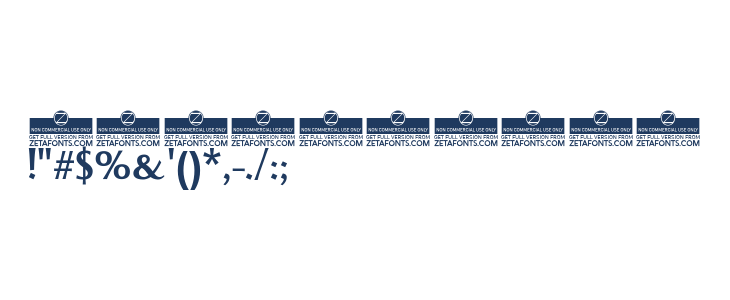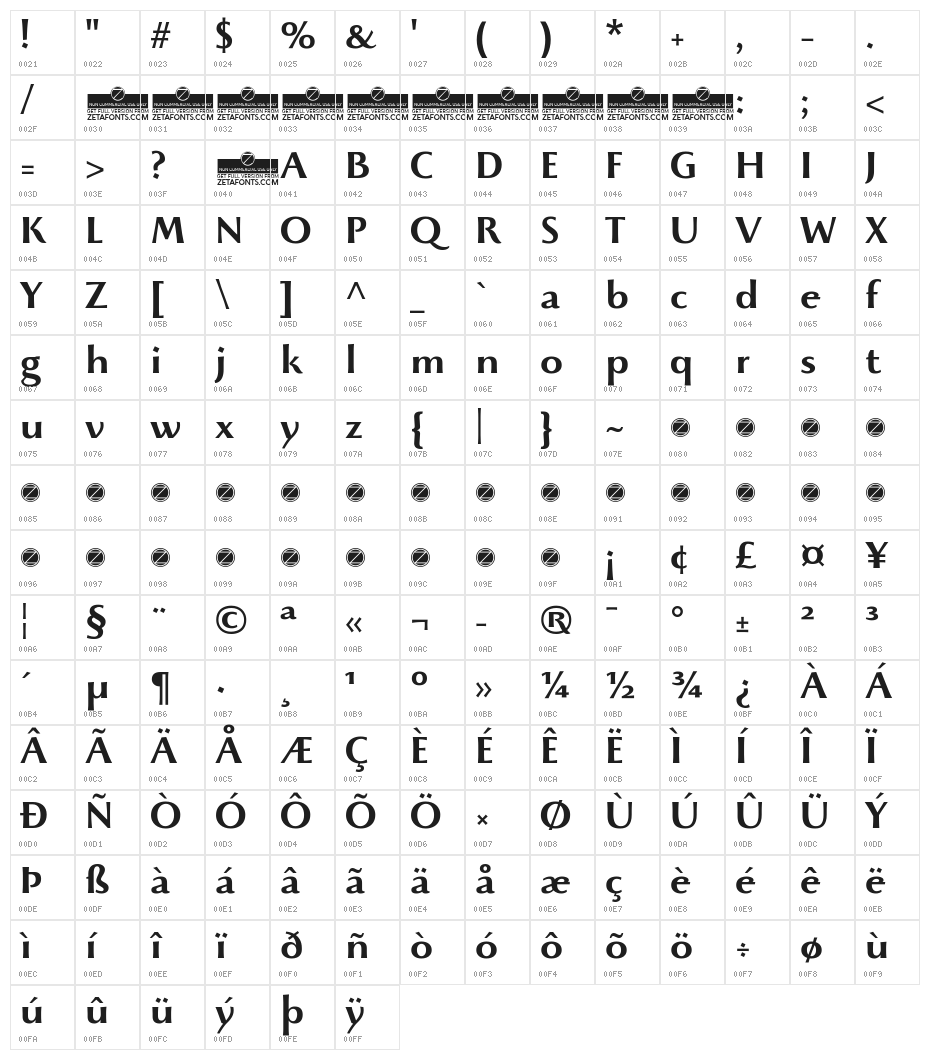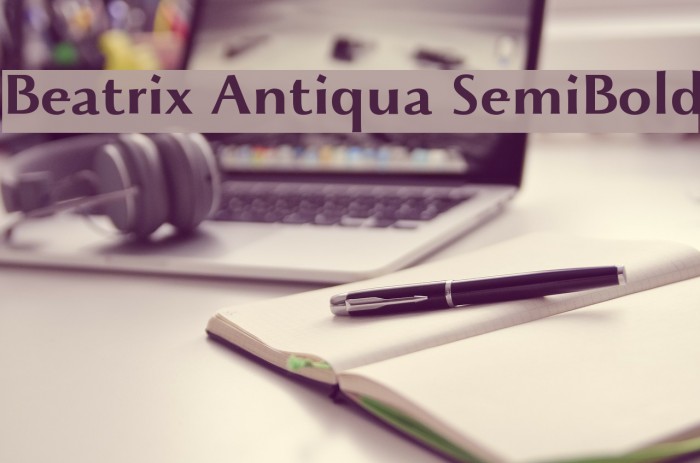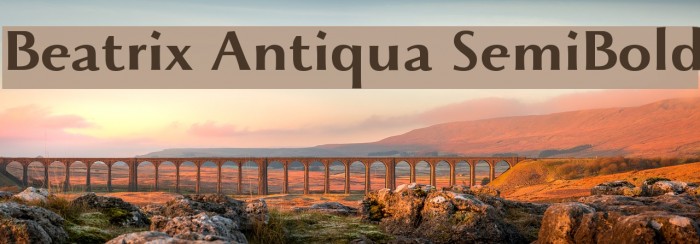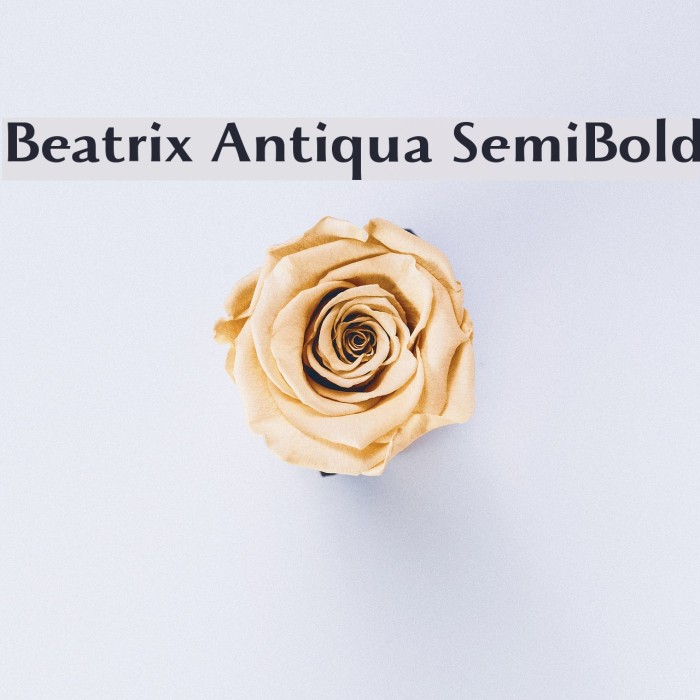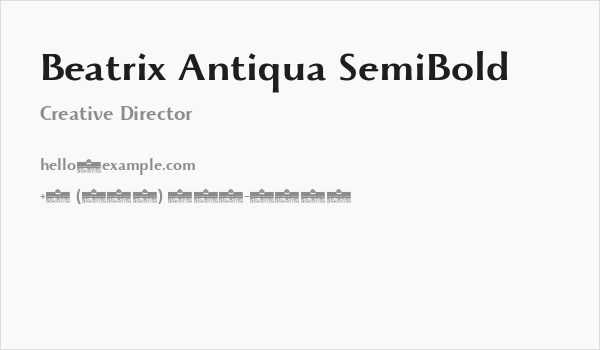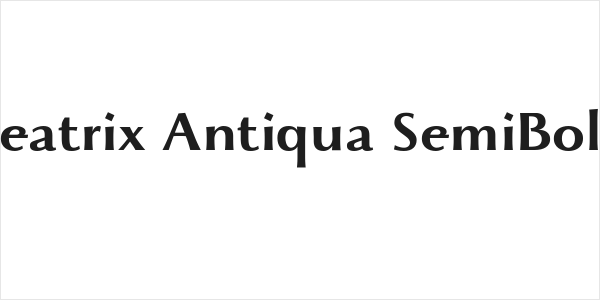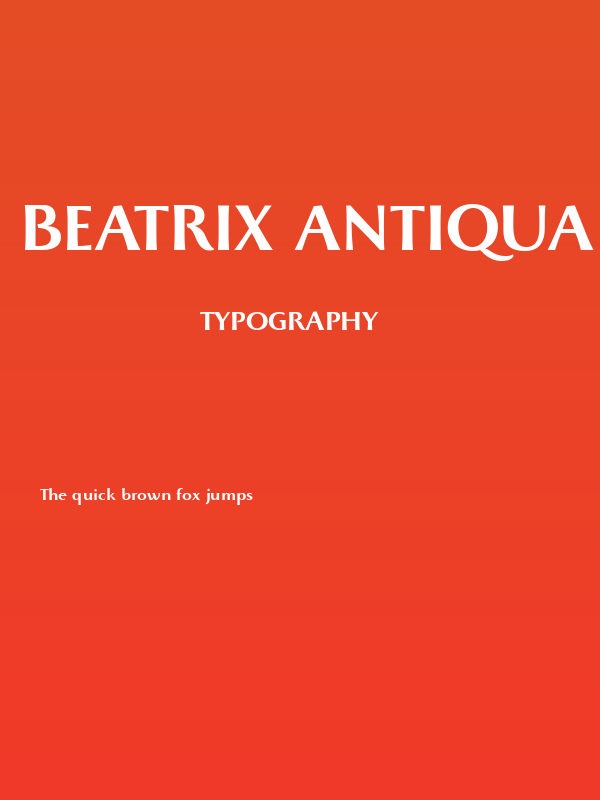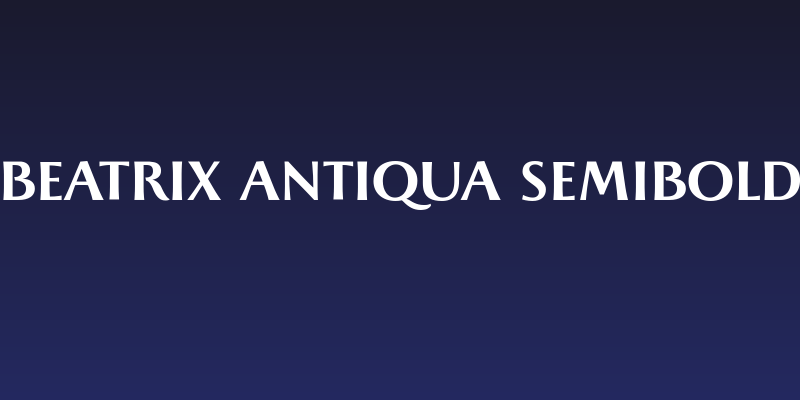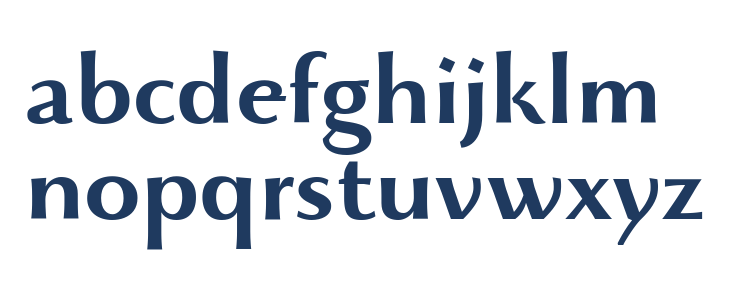
Beatrix Antiqua SemiBold Font
Beatrix Antiqua SemiBold Description
This font presents a classic and elegant serif style with a semi-bold weight, offering a sophisticated and timeless appearance. The uppercase letters are characterized by their strong, angular serifs and consistent stroke width, providing a sense of stability and formality. The lowercase letters maintain a harmonious balance with slightly rounded forms and subtle curves, enhancing readability while retaining a traditional aesthetic. The numerals are clear and distinct, matching the overall serif style. Special characters are well-integrated, maintaining the font's cohesive look. This font is suitable for projects that require a touch of elegance and tradition.